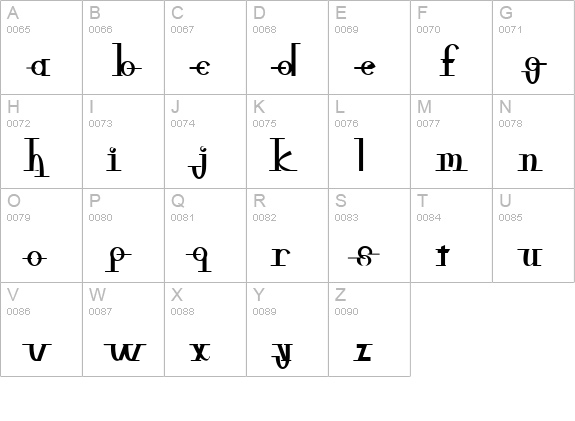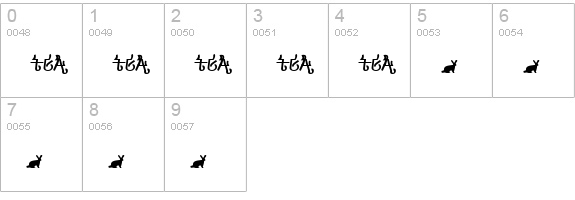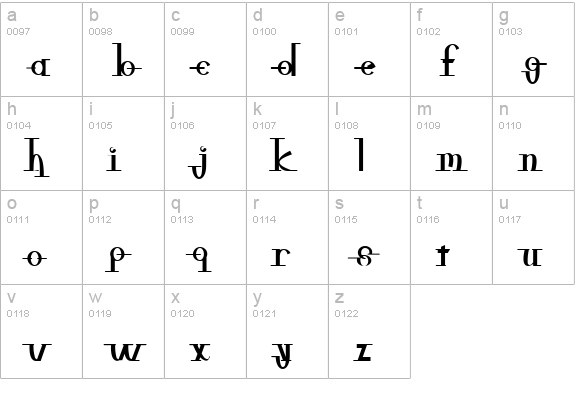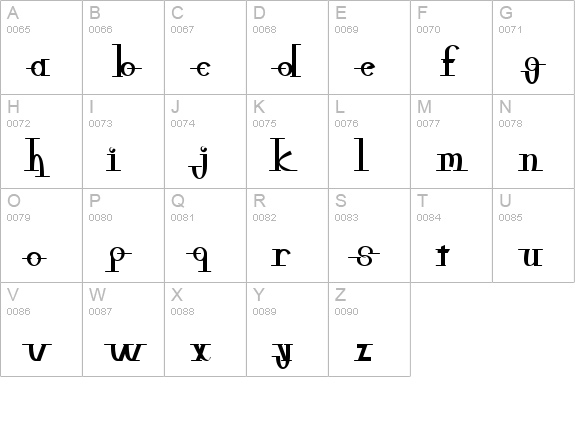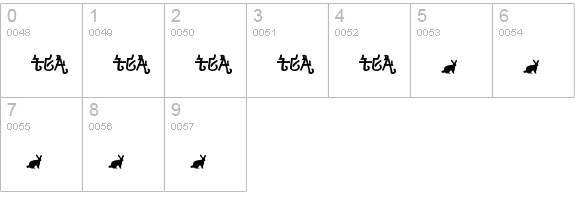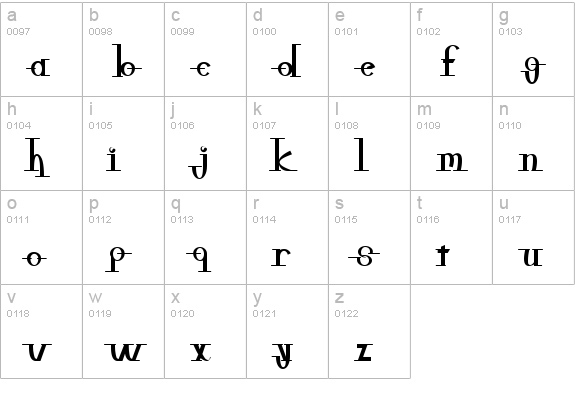
freeble Font Details
Introducing the captivating Freeble font, a versatile and modern typeface that exudes elegance and sophistication. This unique font is perfect for a wide range of design projects, from branding to editorial design and beyond. With its sleek lines and stylish curves, Freeble adds a touch of class to any project it graces. One of the best things about Freeble font is that it is completely free to download at FontsMarket.com. Yes, you read that right - this stunning font is available for free, allowing you to add a touch of luxury to your designs without breaking the bank. Whether you're a seasoned designer looking to freshen up your portfolio or a beginner looking to experiment with new fonts, Freeble font is the perfect choice. So why wait? Head over to FontsMarket.com today and download the Freeble font to elevate your designs to new heights. With its timeless appeal and modern flair, Freeble is sure to become a staple in your font collection. Download it now and let your creativity soar!